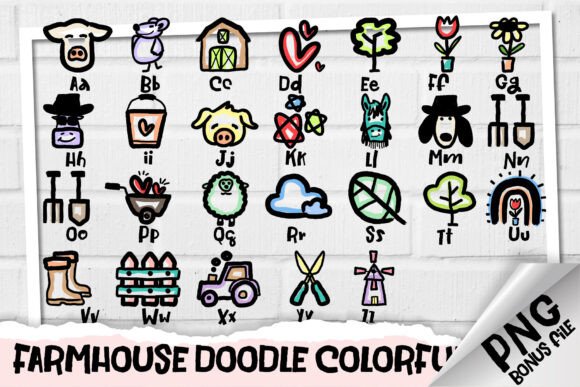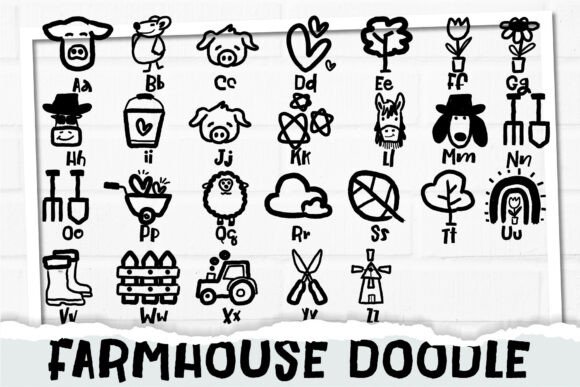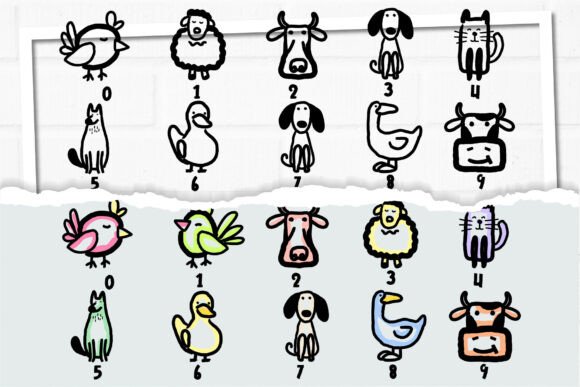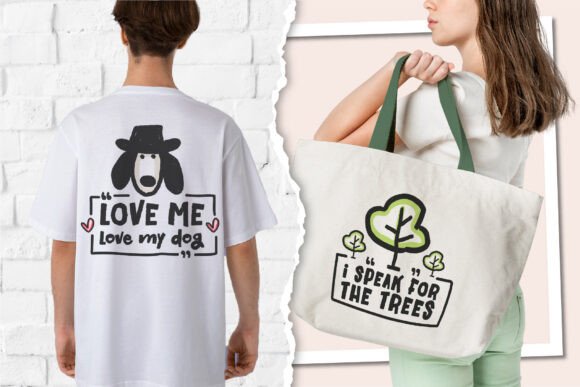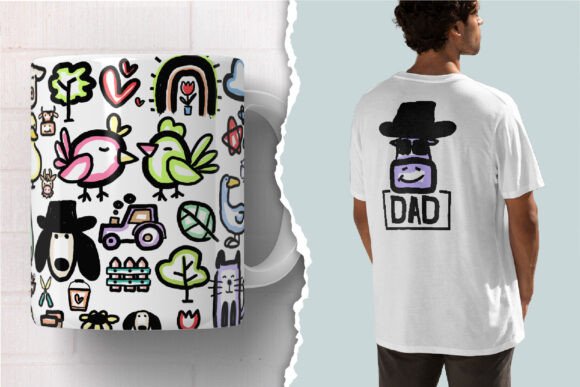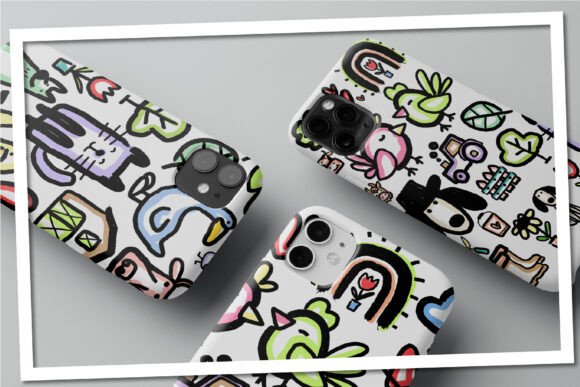
Introducing Farmhouse Doodle Font: A Charming Hand-Drawn Font for Rustic Creations
Are you a designer, crafter, or DIY enthusiast looking for a unique and playful font to add a touch of rustic charm to your projects? Look no further than the Farmhouse Doodle Font! This delightful hand-drawn font is filled with an assortment of cute farm-themed icons, including animals, flowers, rainbows, barns, and tools. Perfect for a variety of creative applications, the Farmhouse Doodle Font is sure to bring a smile to your face and a touch of country whimsy to your designs.
What is Farmhouse Doodle Font?
Farmhouse Doodle Font, also known as Farmhouse Doodle Dingbat Font, is a one-of-a-kind font that combines the charm of hand-drawn illustrations with the versatility of a digital font. This font is not just a collection of letters and numbers, but a treasure trove of adorable farm-themed icons that can be used to create a wide range of creative projects. From stickers and sublimation designs to printables, coloring pages, T-shirts, and scrapbooking, the Farmhouse Doodle Font is the perfect addition to any designer’s or crafter’s toolkit.
Key Features of Farmhouse Doodle Font
- Hand-drawn illustrations: Each icon in the Farmhouse Doodle Font has been carefully hand-drawn to give it a unique, rustic feel that’s perfect for farmhouse-style designs.
- Farm-themed icons: The font includes a wide range of farm-themed icons, such as animals (e.g., cows, pigs, chickens), flowers, rainbows, barns, tools, and more.
- Versatile design: The Farmhouse Doodle Font can be used for a variety of creative projects, from digital designs to print-on-demand products.
Creative Uses for Farmhouse Doodle Font
The Farmhouse Doodle Font is perfect for a wide range of creative projects, including:
- Stickers: Use the font to create adorable stickers for laptops, water bottles, or any other surface that needs a touch of rustic charm.
- Sublimation designs: Create beautiful sublimation designs for tumblers, mugs, or other products using the font’s cute farm-themed icons.
- Printables: Design printable art, such as wall art, gift tags, or party decorations, using the Farmhouse Doodle Font.
- Coloring pages: Create coloring pages for kids (or adults!) featuring the font’s adorable farm-themed illustrations.
- T-shirts and apparel: Use the font to design custom T-shirts, hoodies, or other apparel with a rustic, playful feel.
- Scrapbooking: Add a touch of farmhouse charm to your scrapbooking projects using the Farmhouse Doodle Font.
Why Choose Farmhouse Doodle Font?
With so many fonts available, why choose the Farmhouse Doodle Font? Here are just a few reasons:
- Unique and exclusive: The Farmhouse Doodle Font is a one-of-a-kind font that’s sure to set your designs apart from the crowd.
- High-quality illustrations: The font’s hand-drawn illustrations are of exceptionally high quality, making them perfect for use in a variety of creative projects.
- Easily customizable: The font can be easily customized to fit your design needs, allowing you to resize, recolor, and reposition the icons as needed.
In conclusion, the Farmhouse Doodle Font is a charming hand-drawn font that’s perfect for designers, crafters, and DIY enthusiasts looking to add a touch of rustic charm to their projects. With its adorable farm-themed icons, versatile design, and ease of use, this font is sure to become a favorite in your design toolkit. So why wait? Download the Farmhouse Doodle Font today and start creating your own unique, farmhouse-inspired designs!